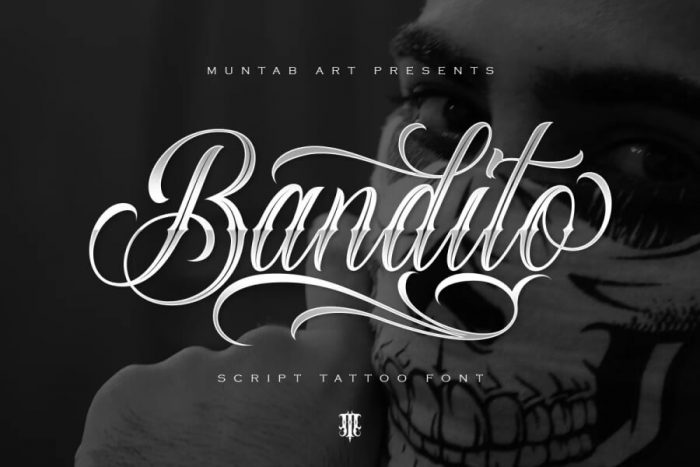
Bandito Script Font
StockMamba presents Bandito Script – an urban tattoo script font with over 250 glyphs, multilingual support, loads of alternates for the lowercase letters, and a set of bonus flourish elements.
The bonus swashes have been added as an alternate font. Type capital A-L to display them. Lower case a-l will display a mirror image of the capital letter versions.